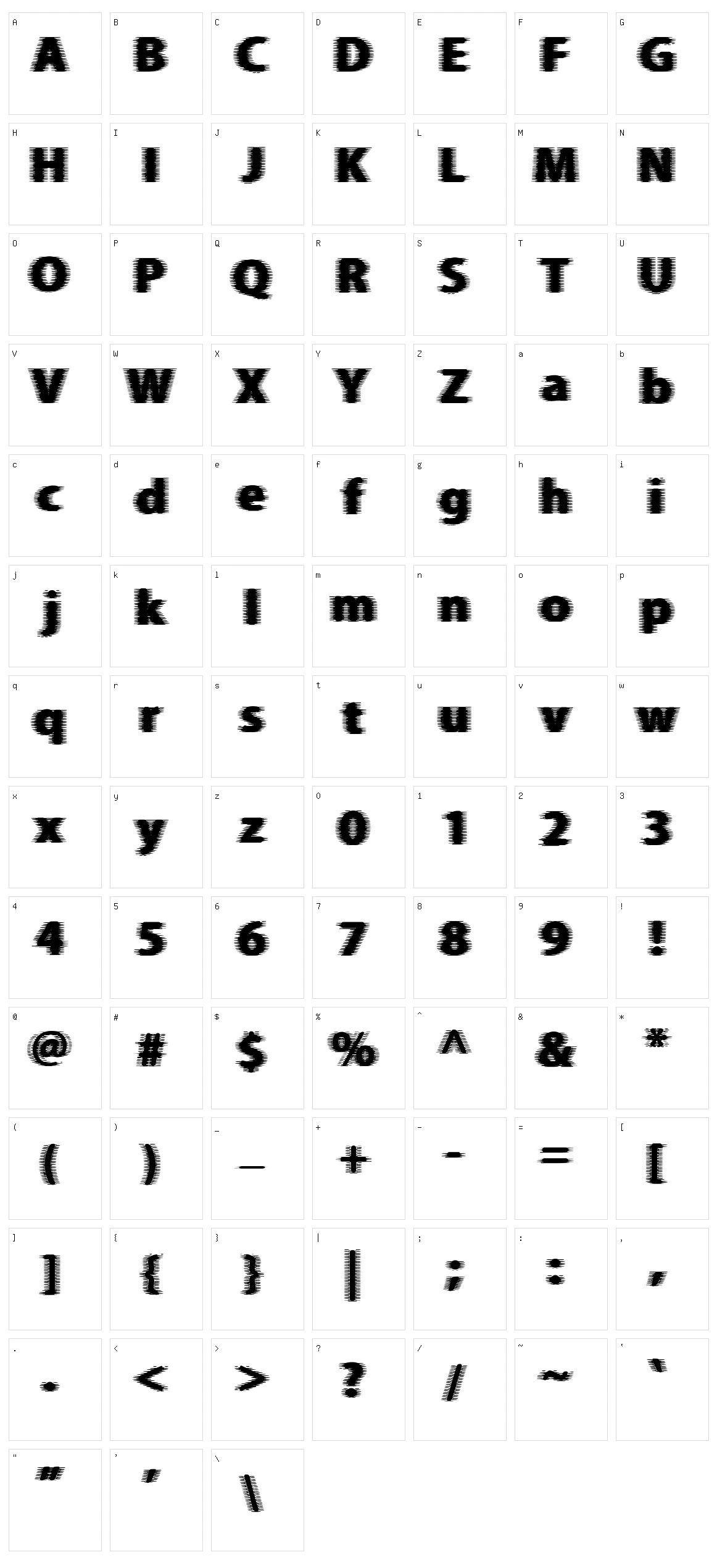
The free font Beer Goggles is carefully designed by Anthony Robinson, showcasing a thoughtful balance of creativity and usability and falls under the Distorted font style. When you download the ZIP file, it contains only 91.63 KB of font files, making it lightweight and quick to download. Please review the license details below to understand permitted usage and distribution rights. If license information is not available, we recommend using this font for personal projects only or contacting the author directly for commercial usage permissions.